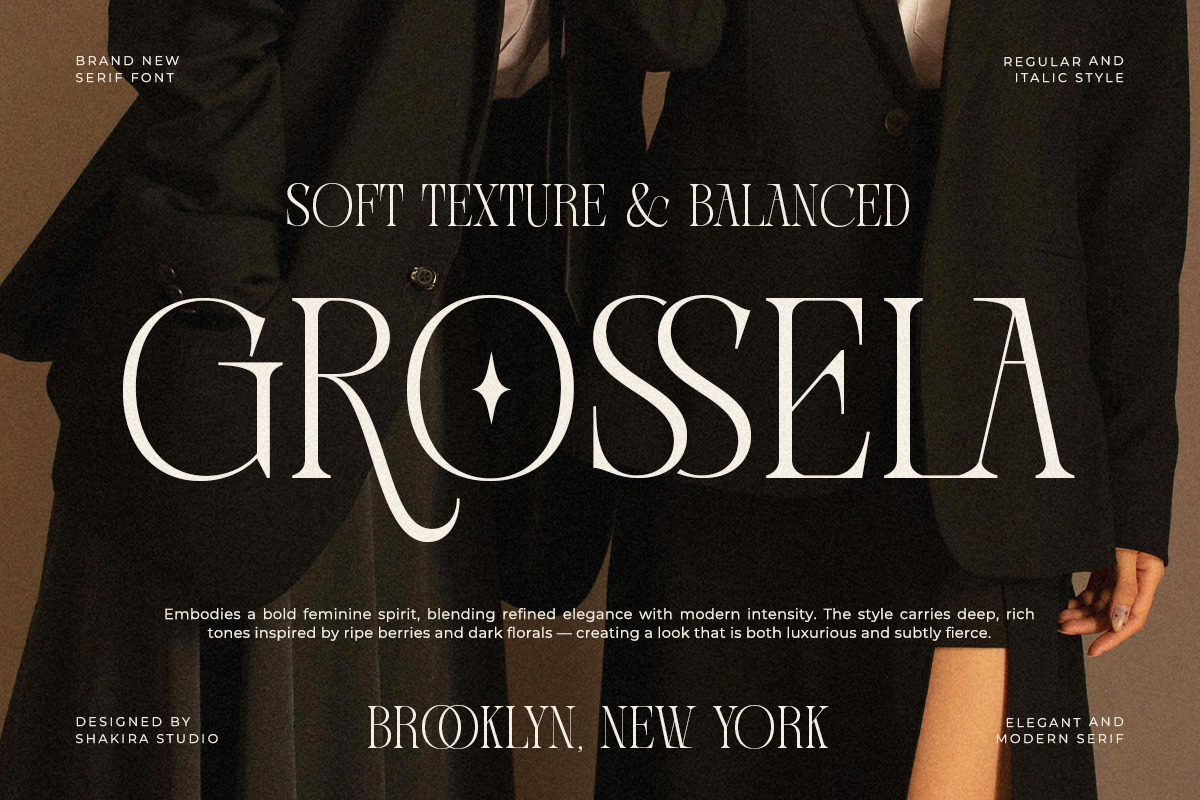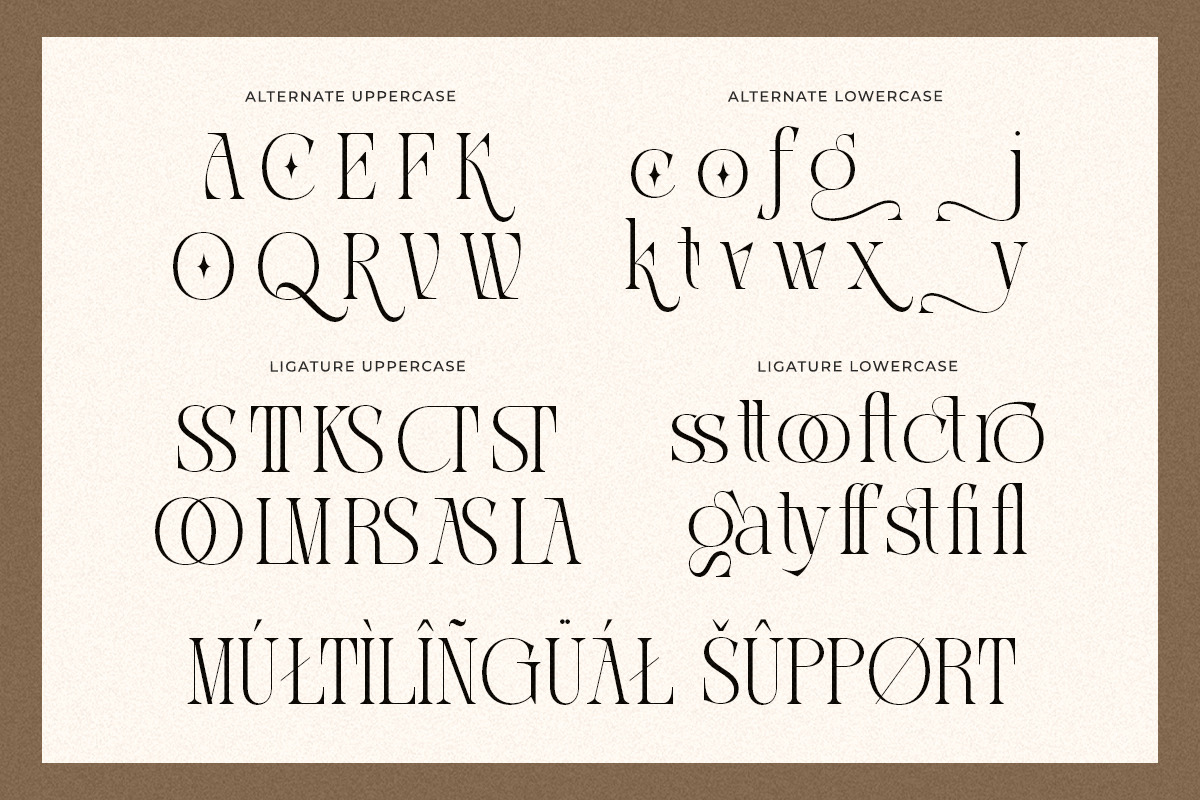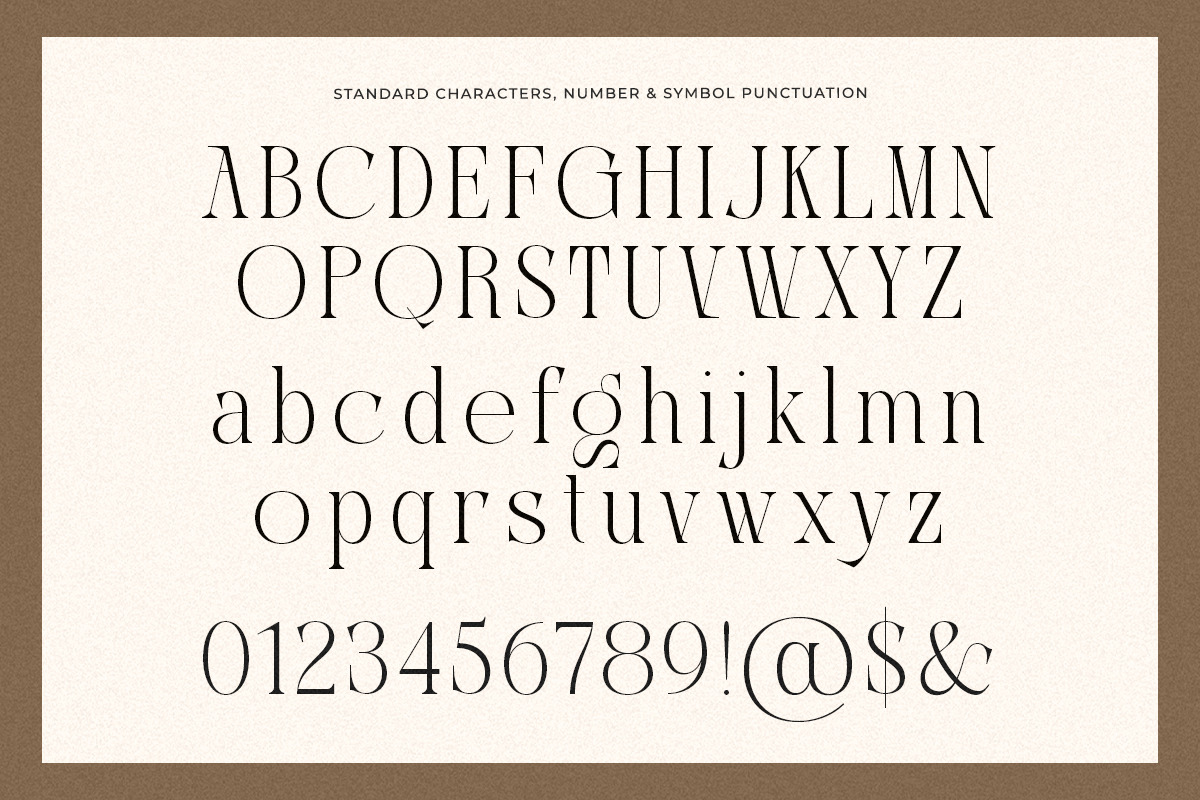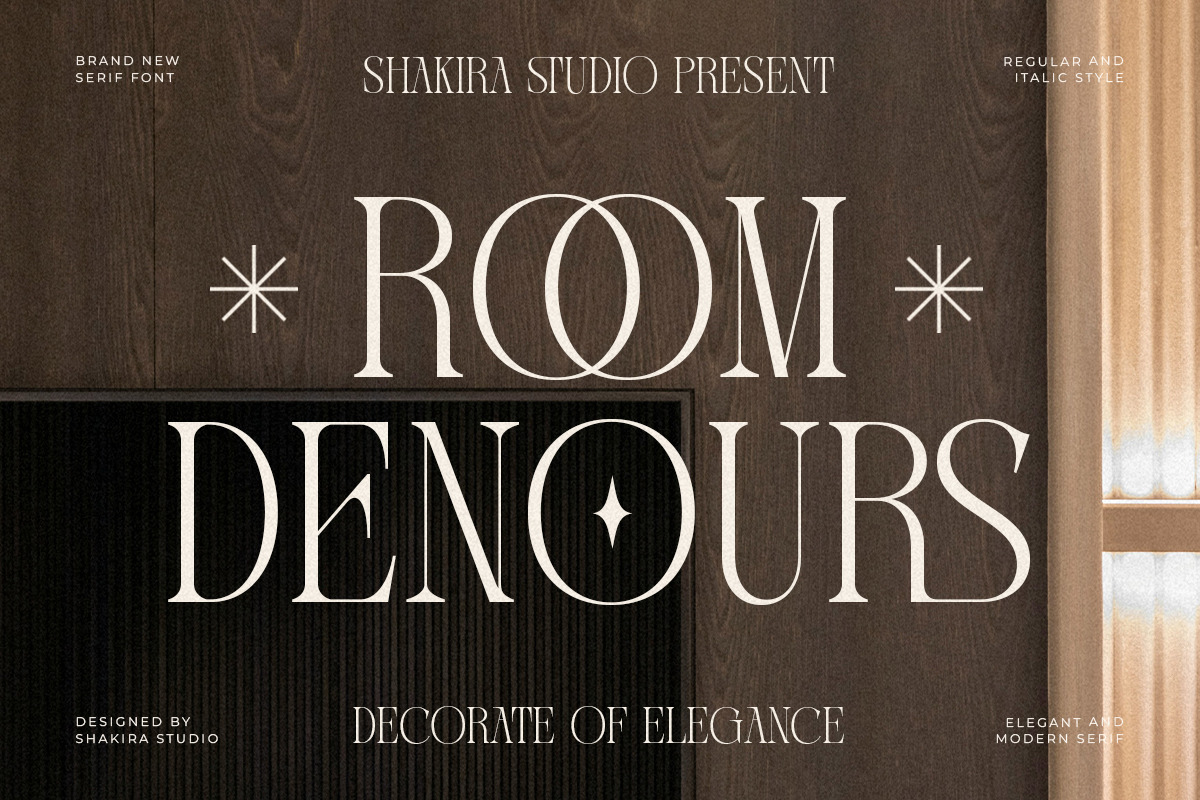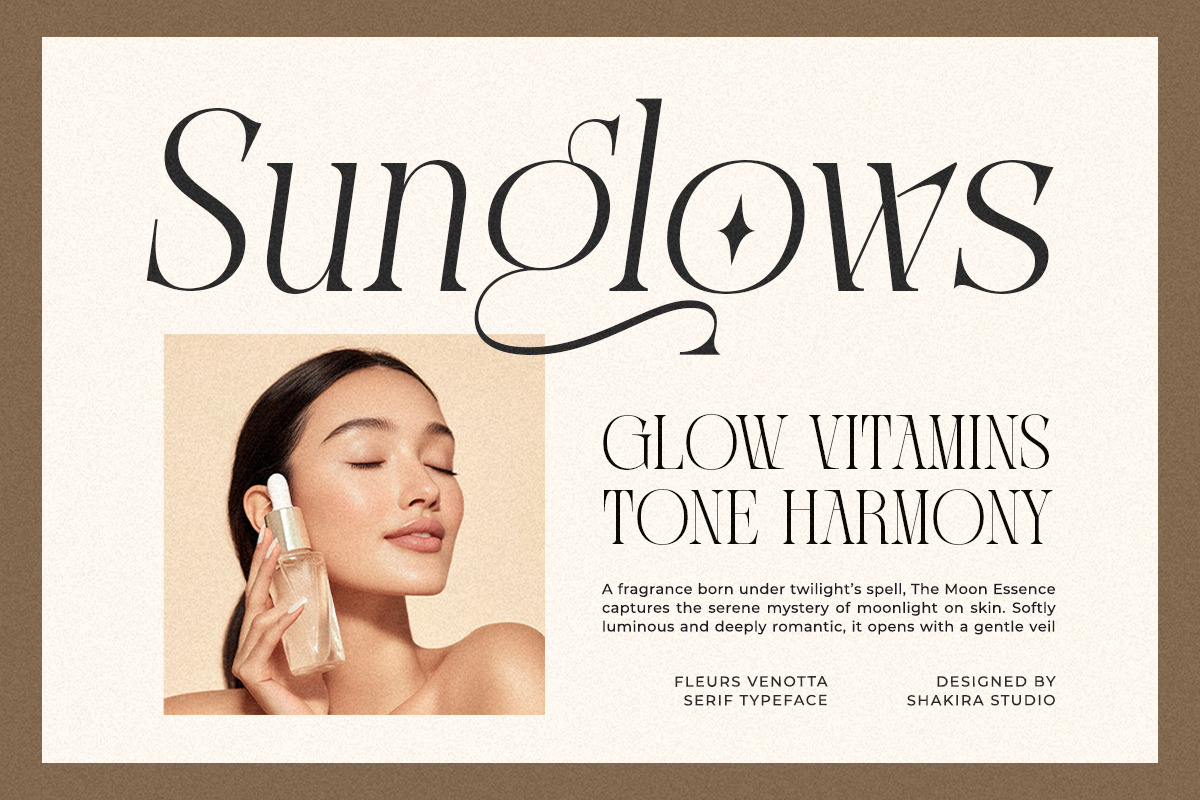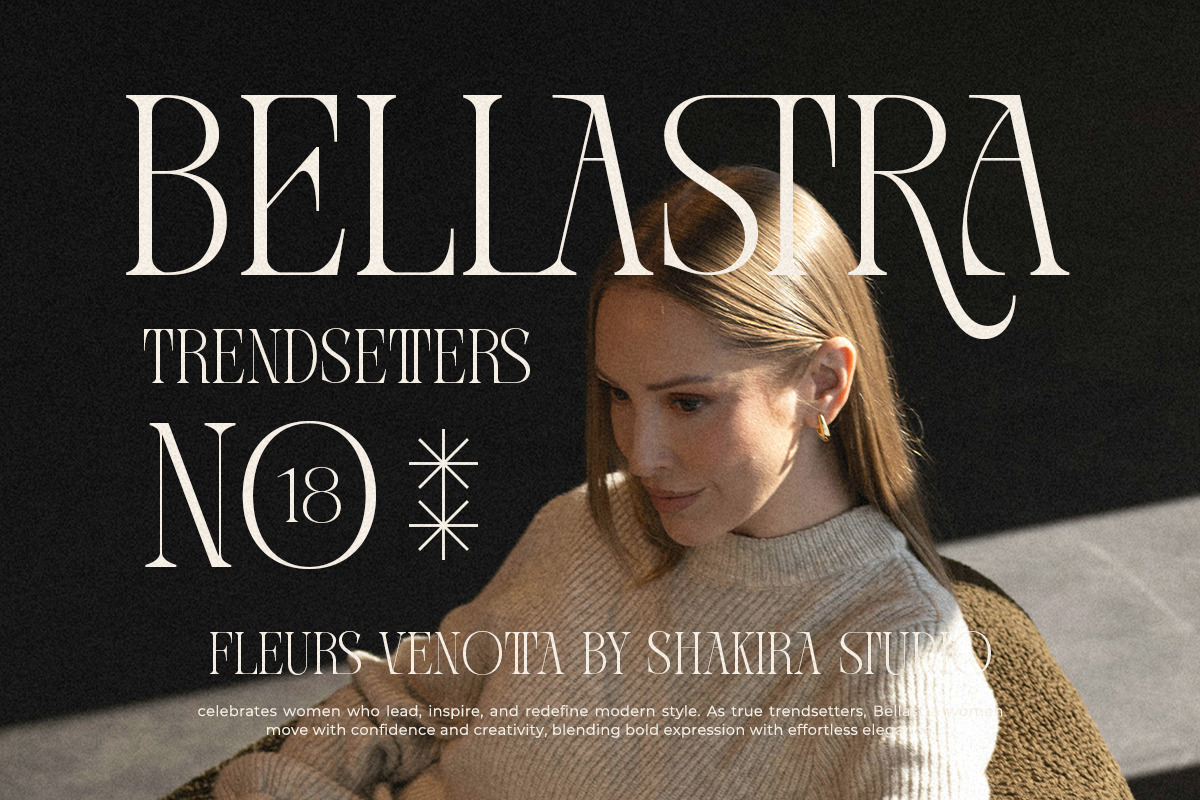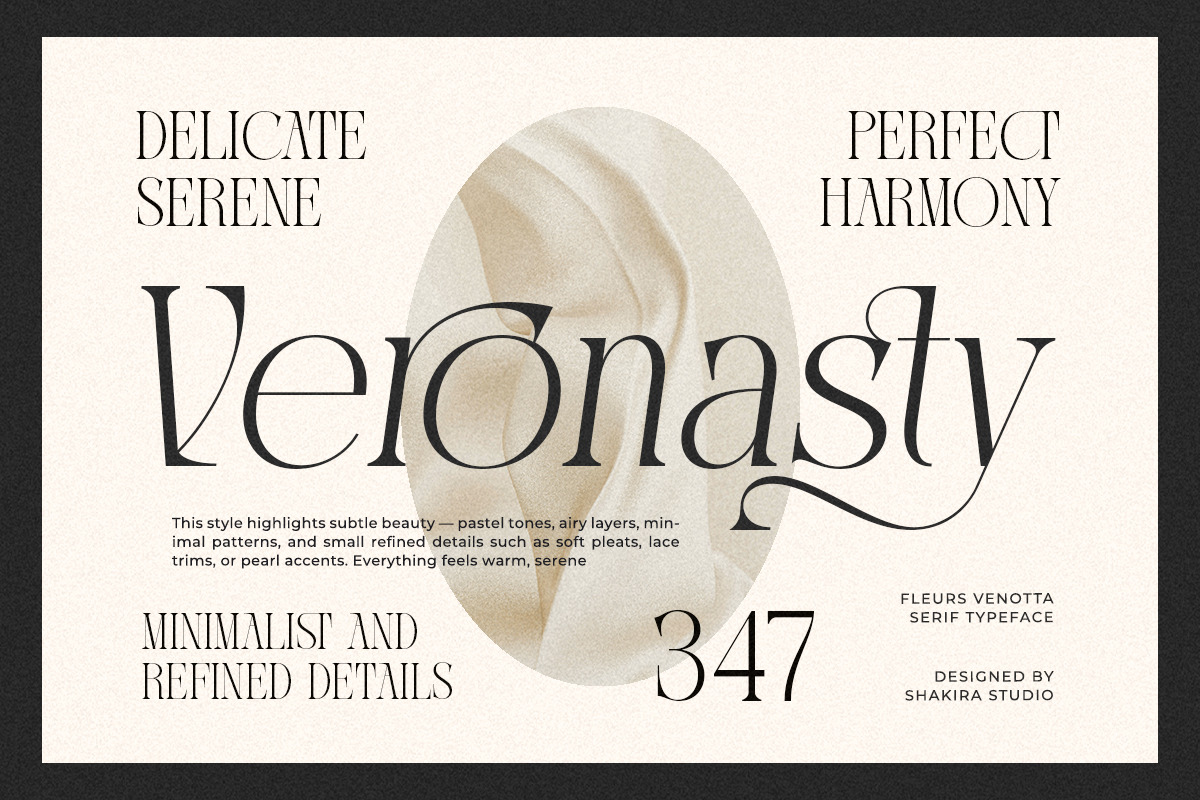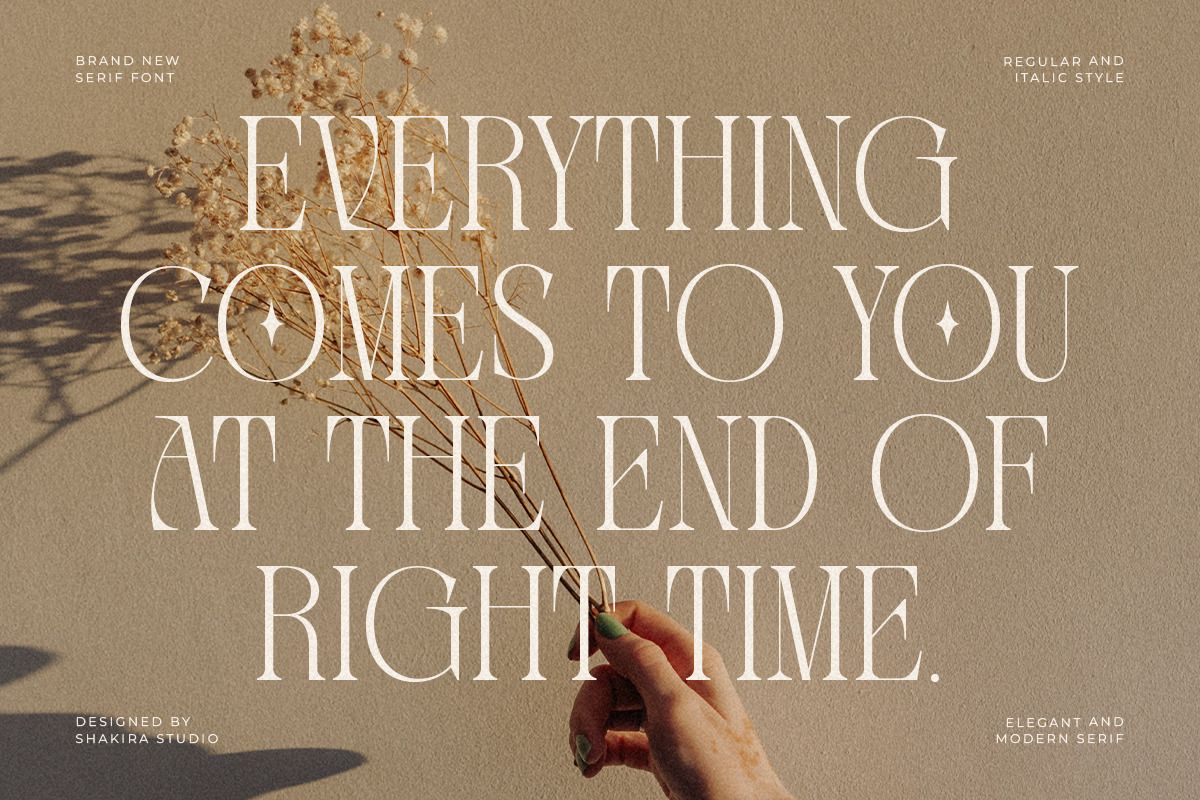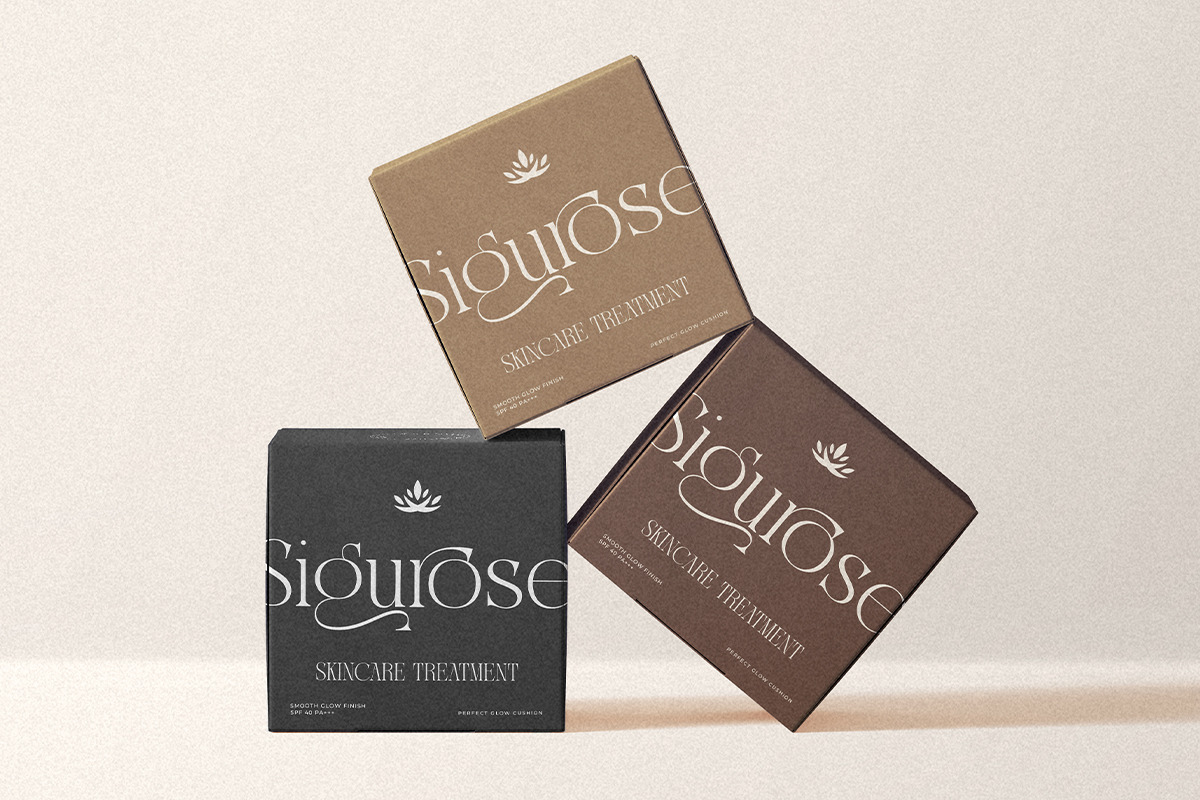
Elegant Modern - Fleurs Venotta
Meet Fleurs Venotta, a modern serif typeface designed for elegance and clarity. With balanced proportions and refined contrast, it brings a sophisticated presence to fashion logos, editorial headlines, beauty branding, and high-end packaging.
Perfect for designers who love timeless elegance with a contemporary edge.
- Regular & Italic styles
- Alternates & ligatures